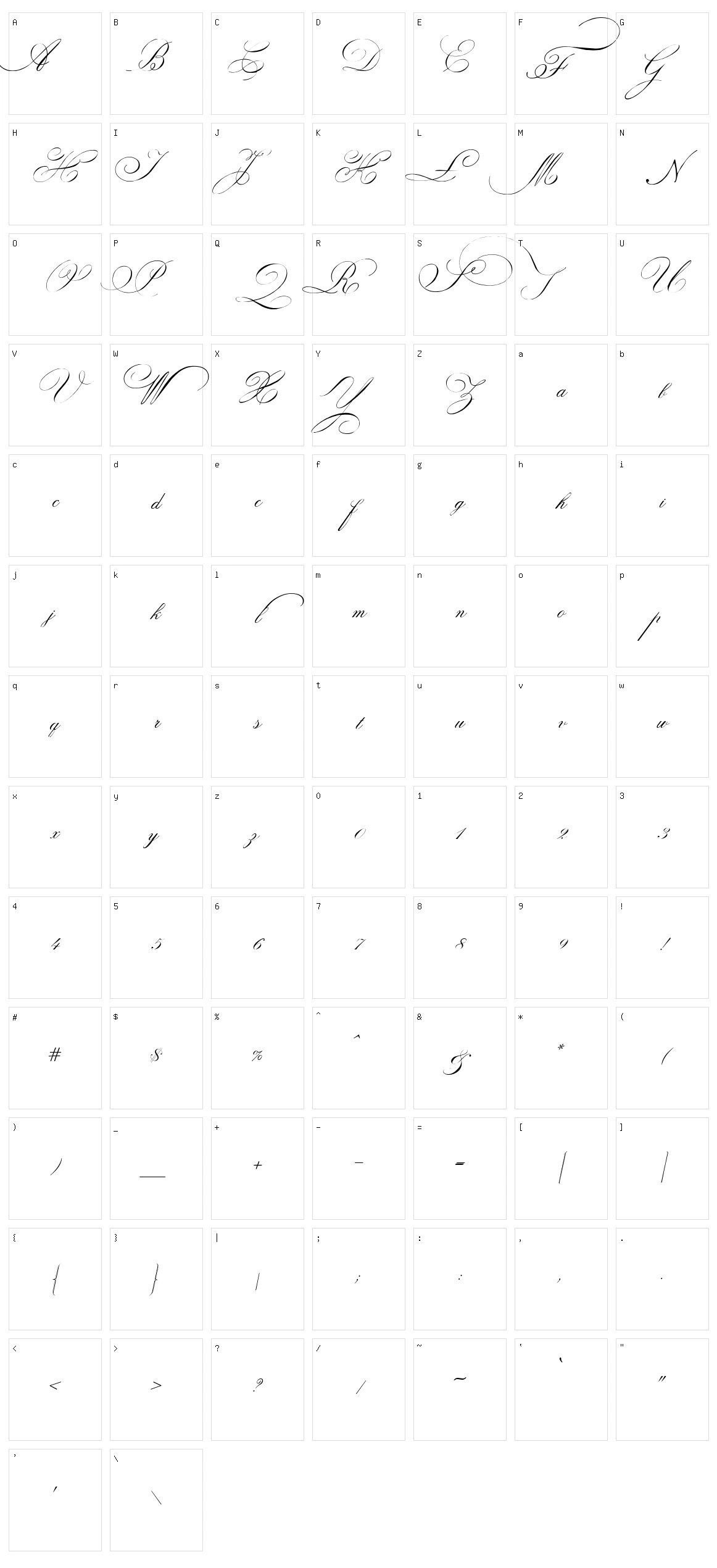
The free font Indenture English Penman is carefully designed by Intellecta Design, showcasing a thoughtful balance of creativity and usability and falls under the Script font style. When you download the ZIP file, it contains only 131.41 KB of font files, making it lightweight and quick to download. Please review the license details below to understand permitted usage and distribution rights. If license information is not available, we recommend using this font for personal projects only or contacting the author directly for commercial usage permissions.